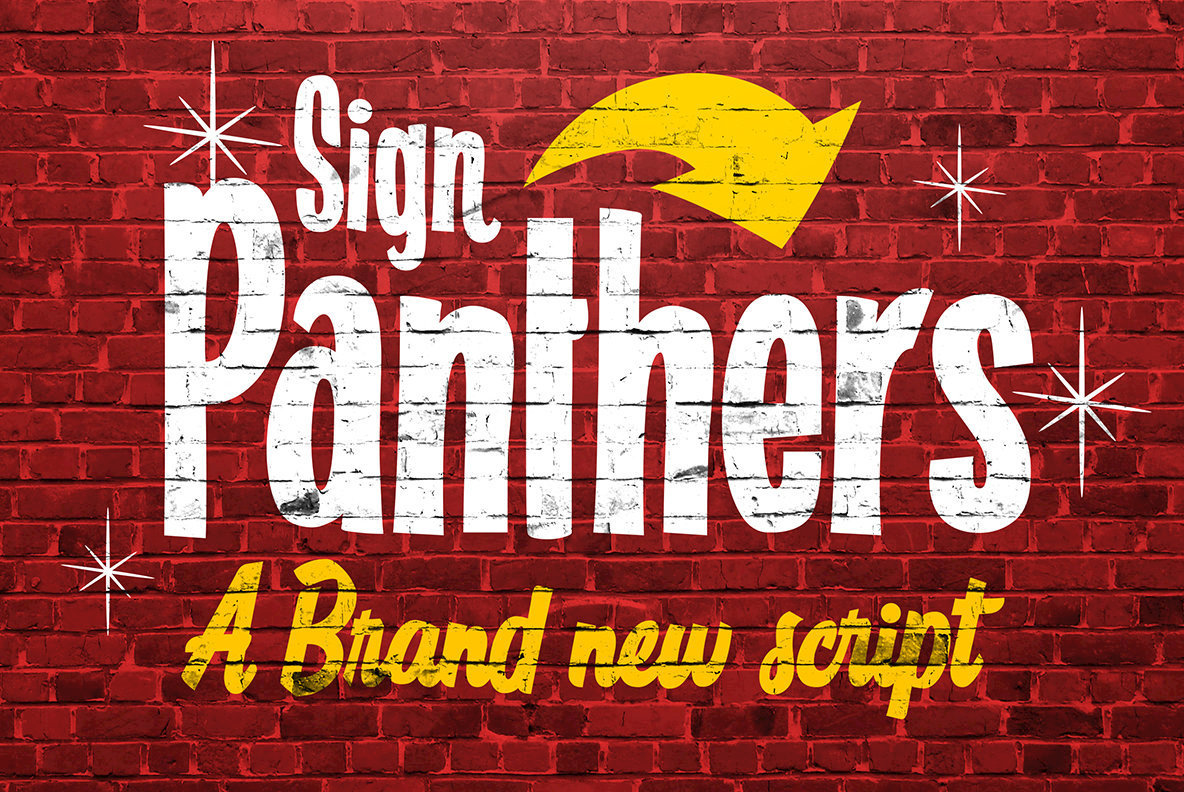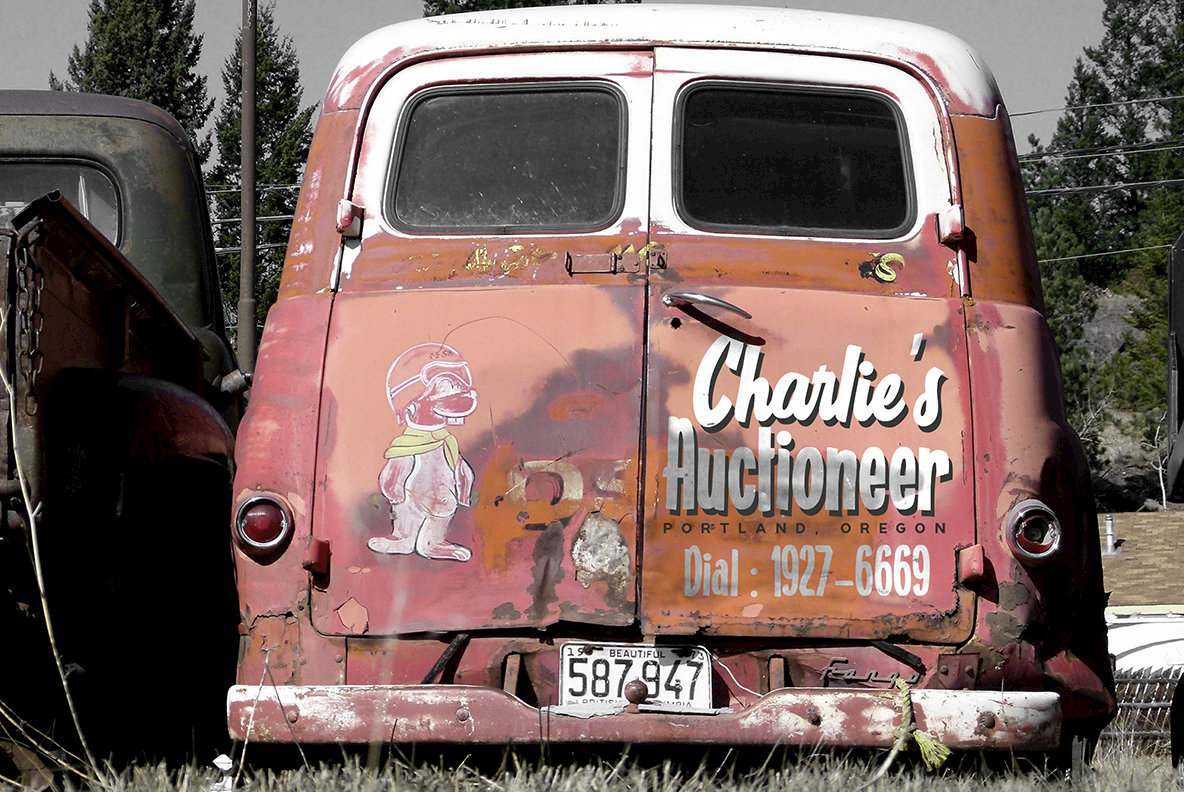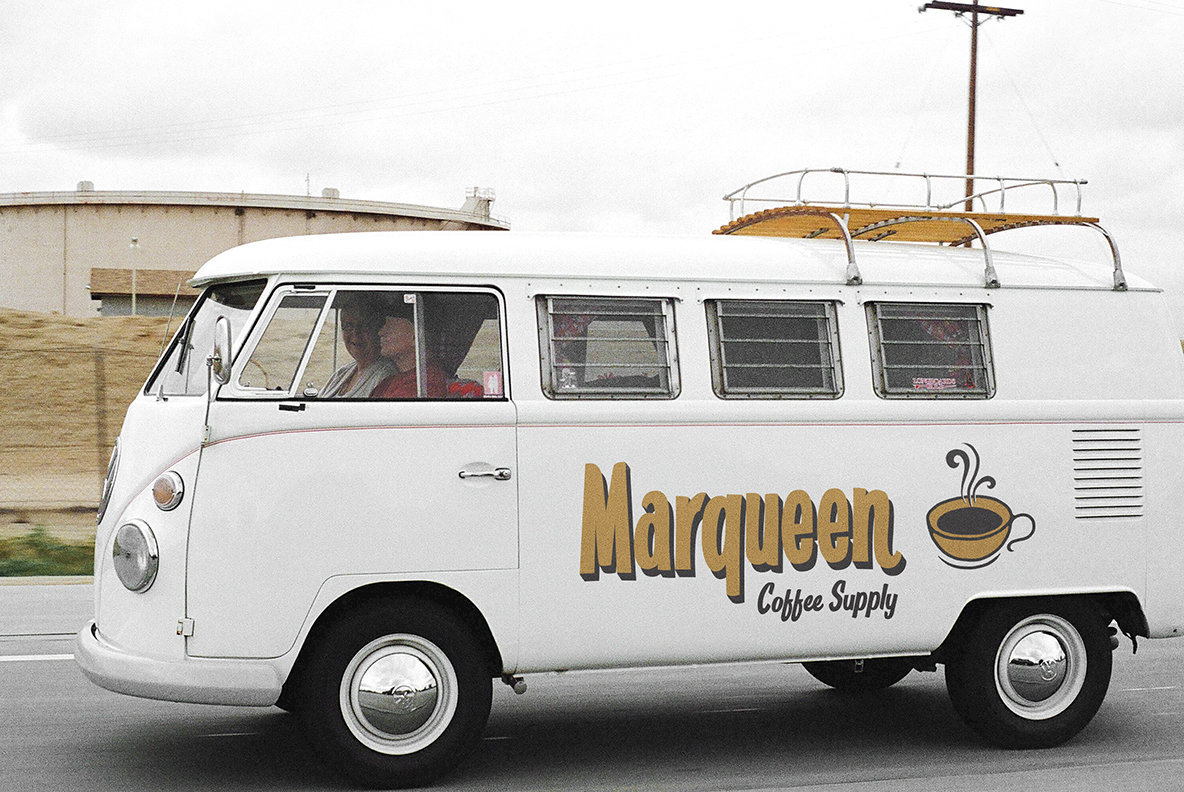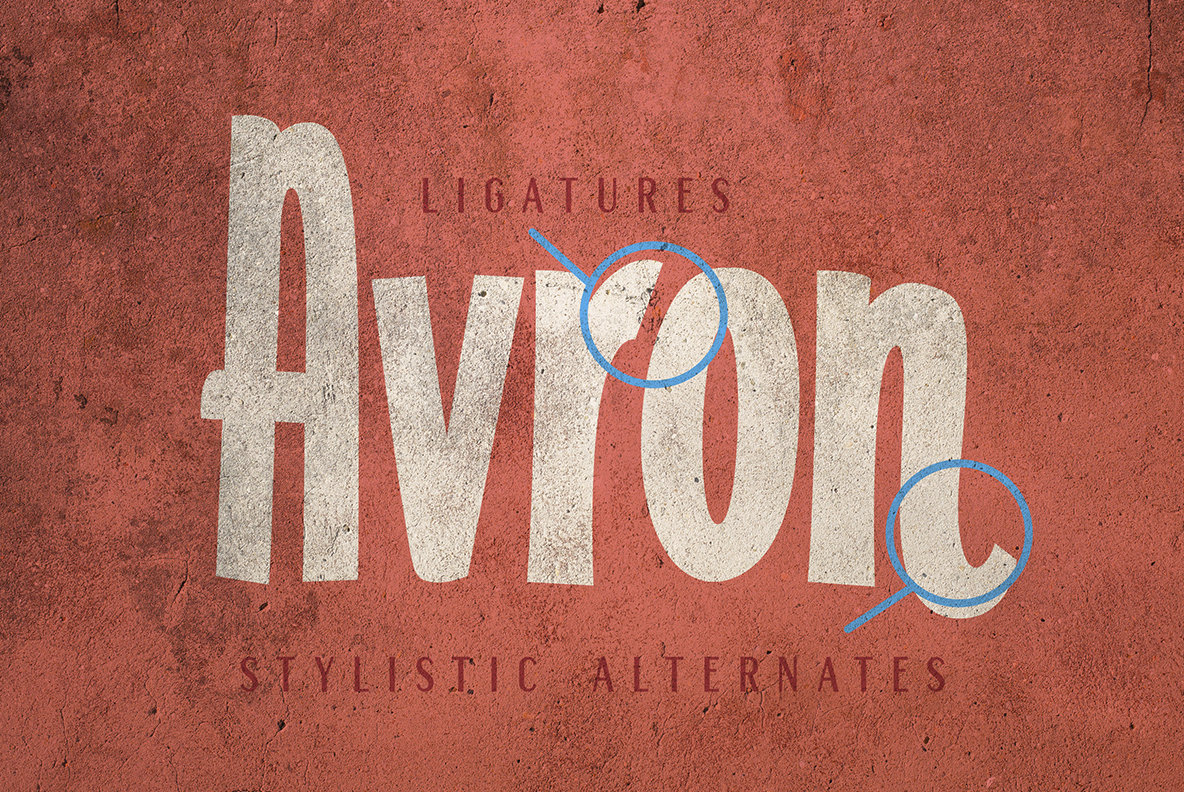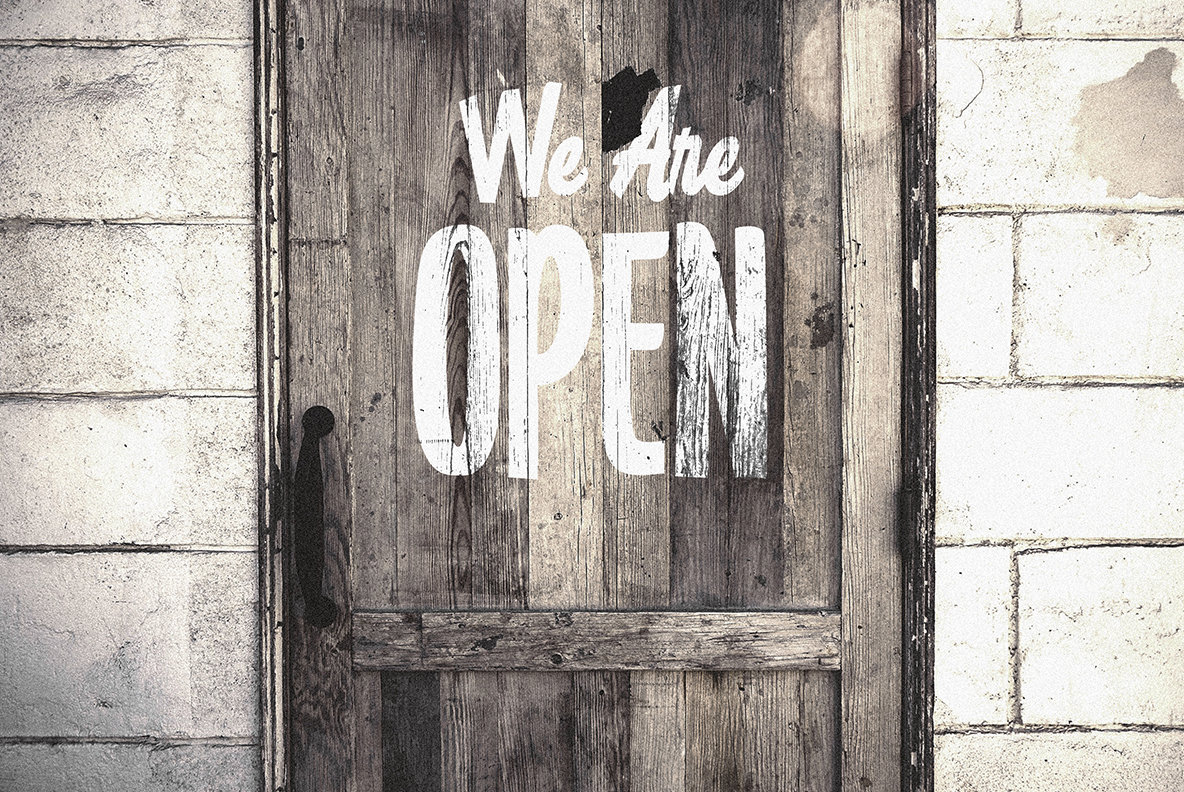
Sign Panthers Font
Sign Panthers is a retro styled script and sans-serif type family, published by Konstantine Studio. The complete family contains 2 styles, that work great when used together.